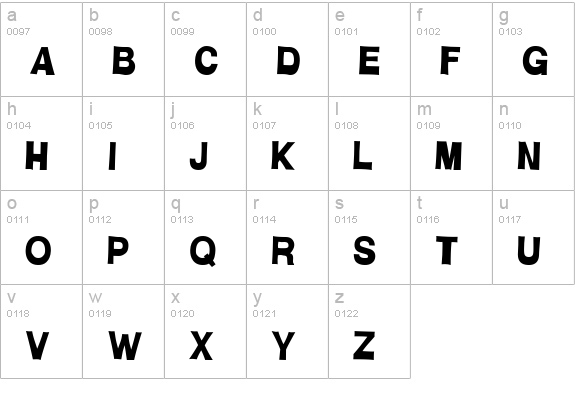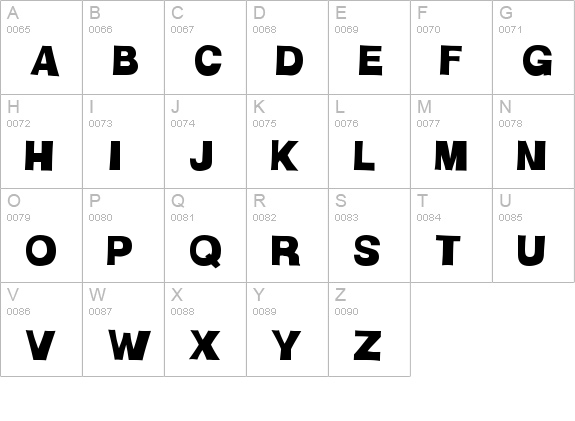
HMan Font Details
Introducing HMan font, a modern and stylish typeface that adds a touch of sophistication to any design project. With its sleek lines and elegant curves, HMan font exudes a sense of professionalism and creativity. This versatile font is perfect for a wide range of applications, from branding and logos to print materials and web design. What sets HMan font apart is not just its striking appearance, but also the fact that it is completely free to download. Yes, you heard that right - this high-quality font is freely available for download at FontsMarket.com. So whether you're a seasoned designer looking to refresh your font collection or a newcomer eager to experiment with different styles, HMan font is the perfect choice for you. Don't miss out on the opportunity to elevate your designs with the elegant and contemporary HMan font. Download it today and let your creativity soar!